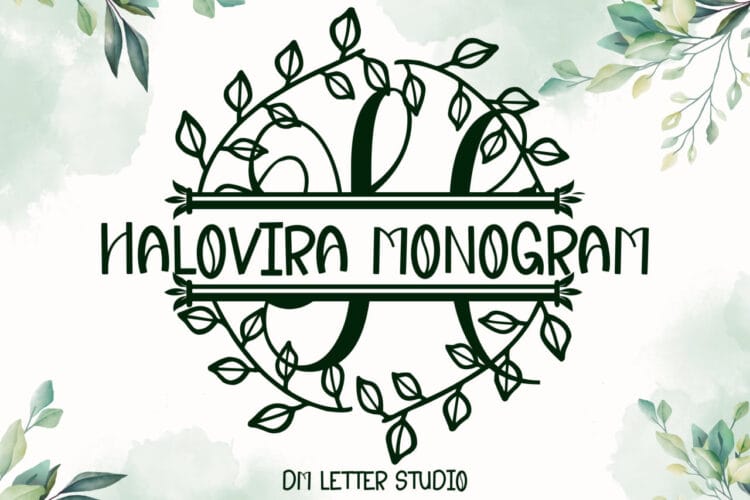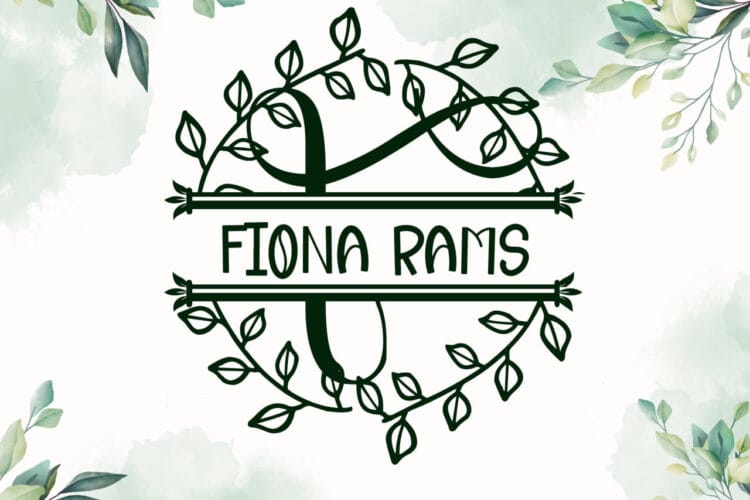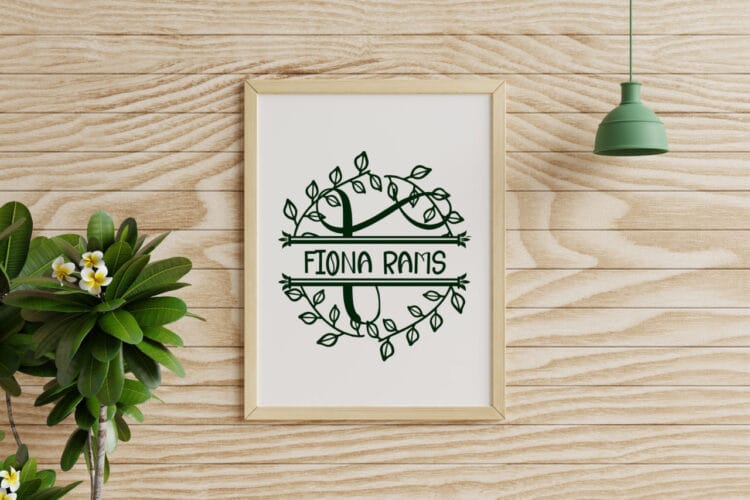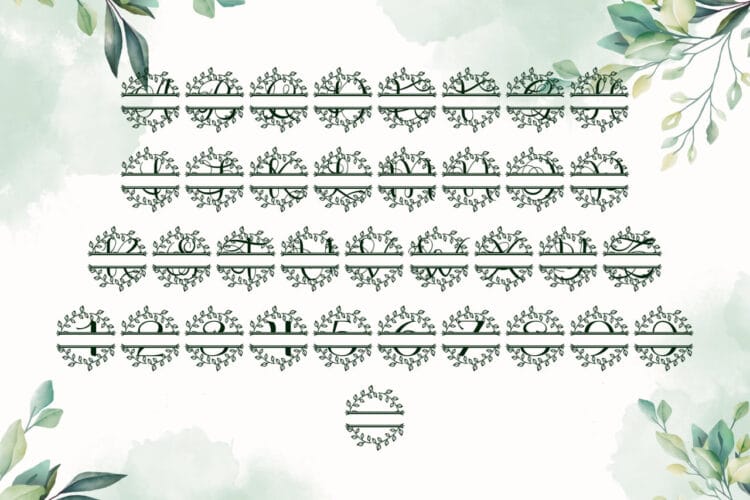
Meet Halovira Split Monogram Font
Halovira Split Monogram Font turns any initial into a soft, name-ready emblem. The clean horizontal split creates natural room for names, dates, or short words. Because spacing stays even and counters stay open, tiny tags stay clear and large signs look refined. Use it for wedding décor, family gifts, venue signage, ornaments, menus, and keepsake tumblers. As a result, you can offer fast personalization that still feels premium and consistent.
Why this split monogram font sells
Ready for names, gifts, and signage
Add the hero initial, center the split, and place the family name inside. After that, try couple names for engagement gifts, table numbers for events, or short words like Home, Welcome, Love, and Joy for seasonal drops. Because metrics are consistent, you can reuse one template and simply swap letters. Therefore, batching orders becomes simple, repeatable, and profitable.
Creative ideas with Halovira Split Monogram
Door hangers, porch signs, and wall plaques
Tumblers, cutting boards, and keepsake boxes
Ceremony programs, menus, and seating cards
Classroom labels, office plates, and staff gifts
Uppercase optimized for split monograms
Matching lowercase, numbers, and punctuation
Curves tuned for vinyl, engraving, laser, DTF, and sublimation
Design tips for soft, elegant clarity
Keep the initial generous, then let white space breathe. Position the split at center or slightly low for balance. Also, choose a simple secondary font inside the split to protect legibility. For finishes, try blush & cocoa, sage & ivory, or champagne & charcoal. Finally, export at 300 DPI for print and at 2× size for web so edges stay smooth everywhere.